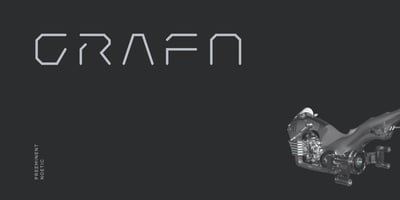
Grafn
Grafn font
Grafn Font Family was designed by Andrew Seah and published by Baqoos. Grafn contains 4 styles and family package options. Grafn is a preeminent noetic linear sans apt for headline, editorial, branding, packaging, printed materials and typographic applications. 240+ glyphs with ligatures and fractions.